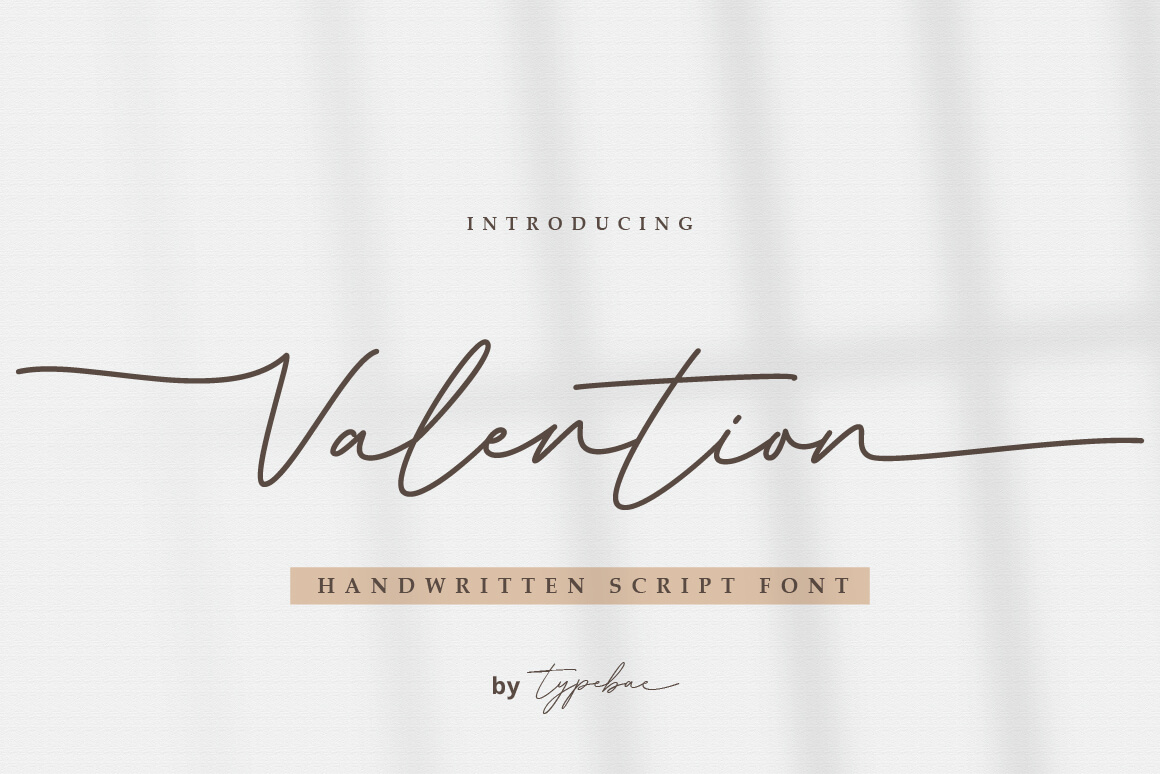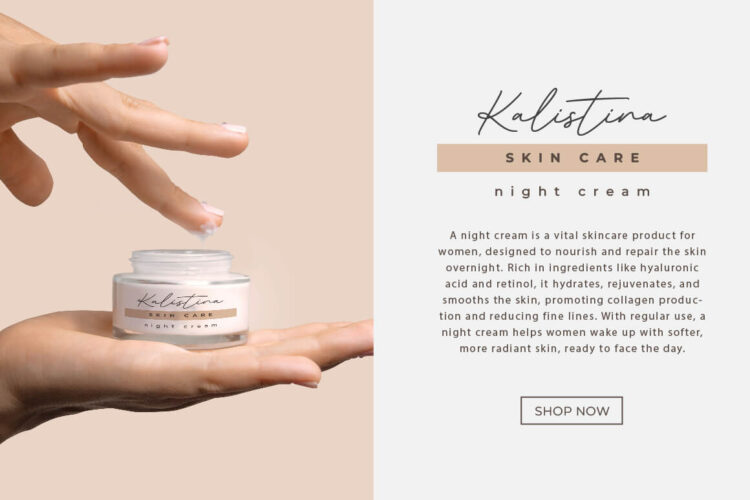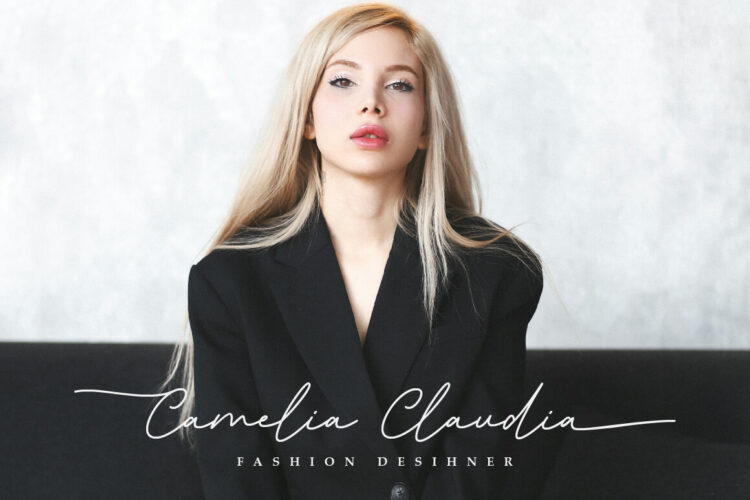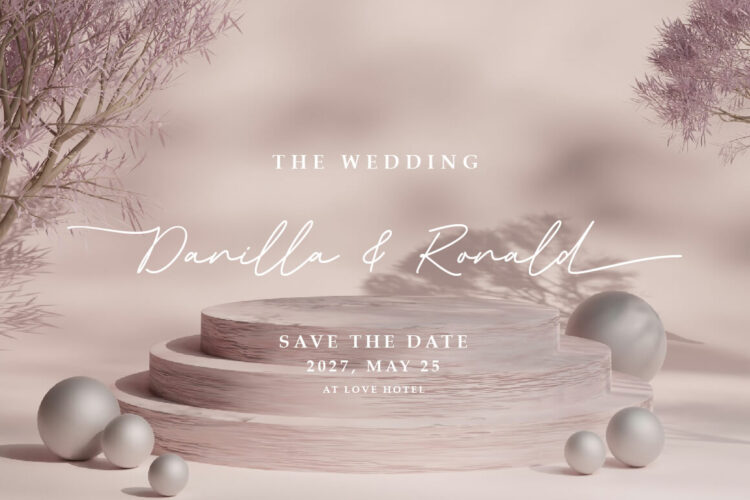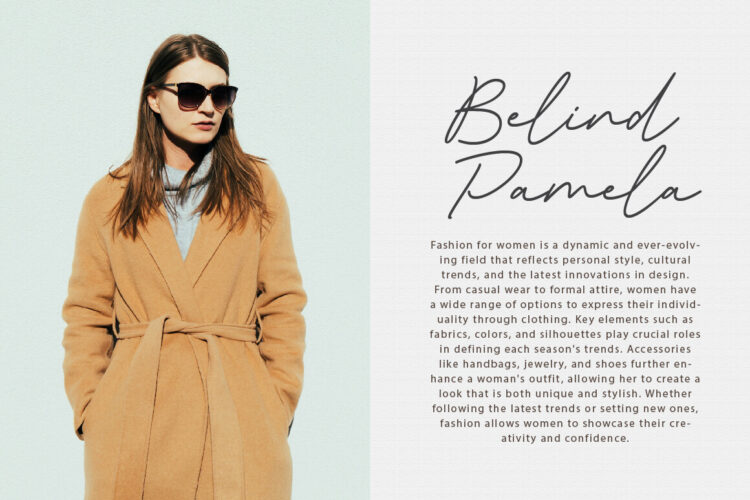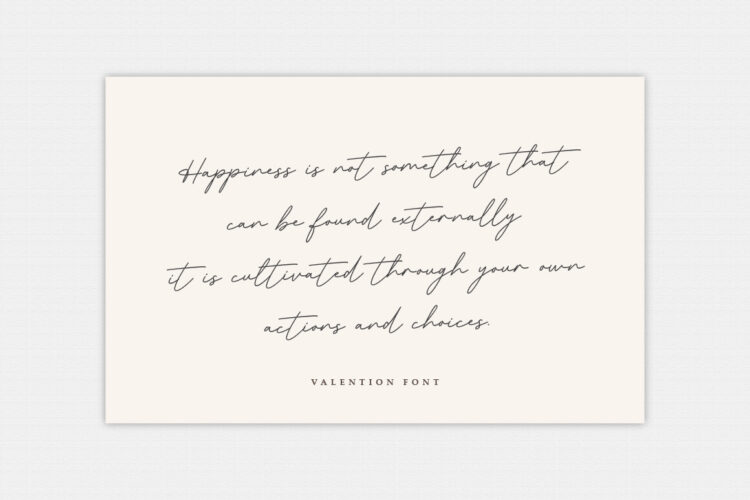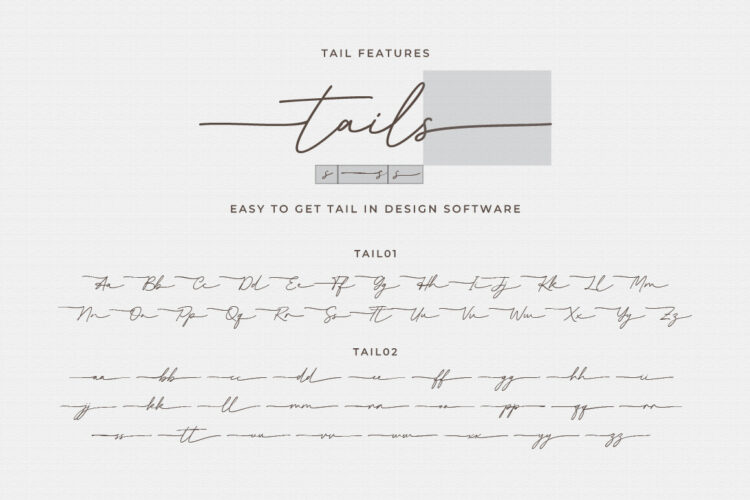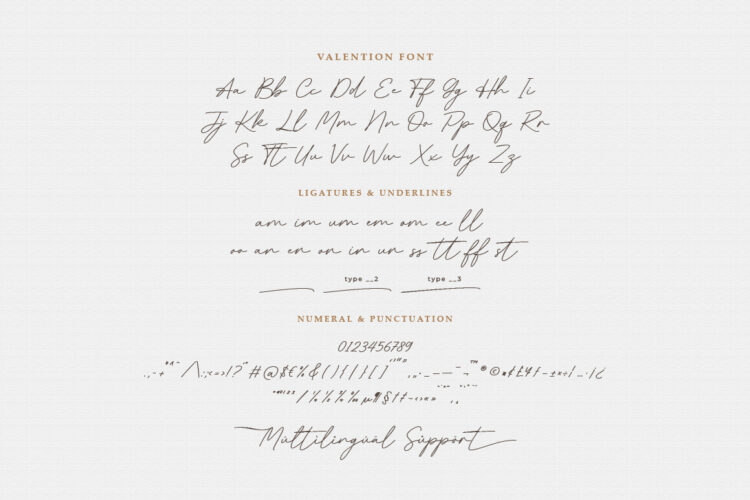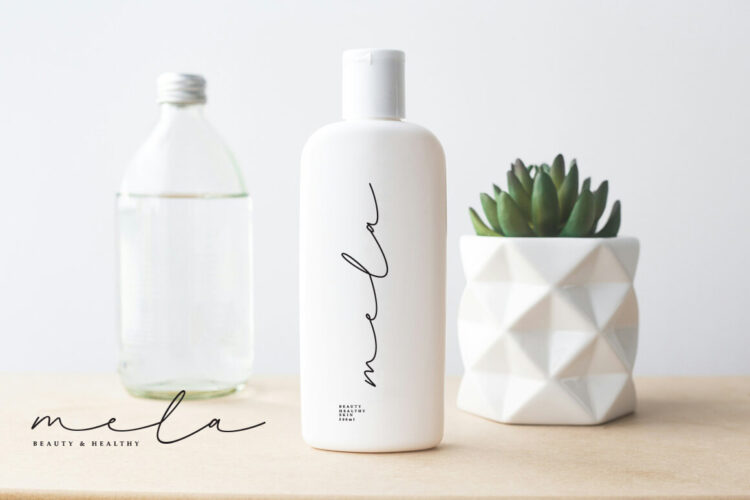
Elegant Handwritten Font
Valention Regular
Valention Tail 1
Valention Tail 2
Valention is a chic script font inspired by natural and stylish handwriting. It features charming alternate letters and mesmerizing tails at the beginning and end of each stroke. A distinctive characteristic of this font is its heart-shaped connecting tails, which add a touch of romance and charm. It is perfect for branding, logos, invitations, greeting cards, headlines, and more.
Valention is PUA encoded, meaning you can easily access all the alternate characters and swashes.
• Uppercase & Lowercase
• Numeral, Punctuation & Symbol
• Stylistic Alternate & Ligatures
• PUA Encoded & Multilingual